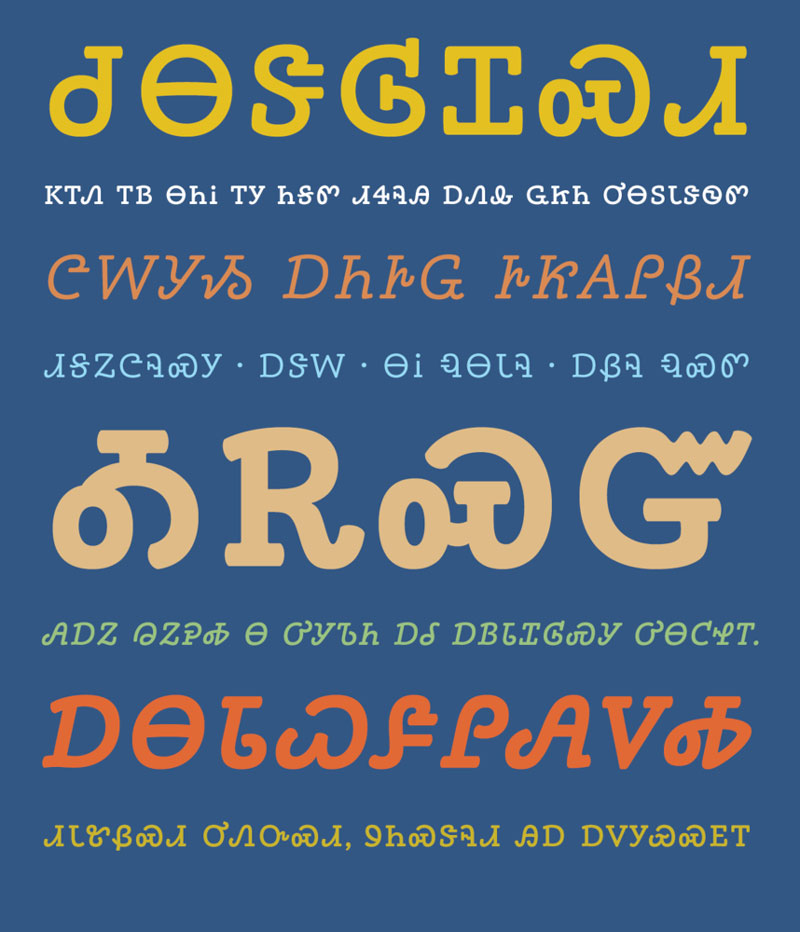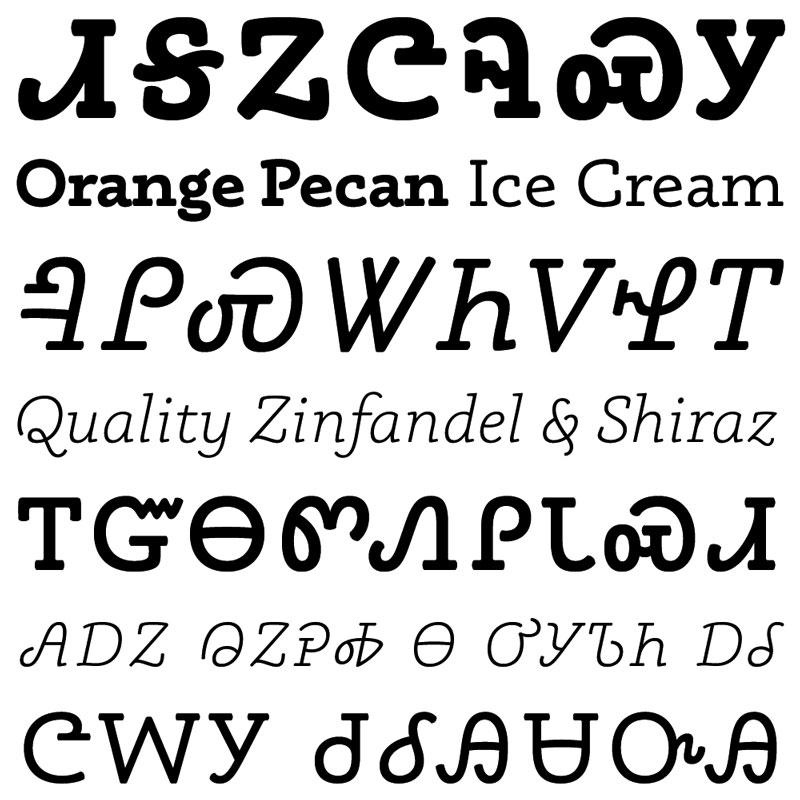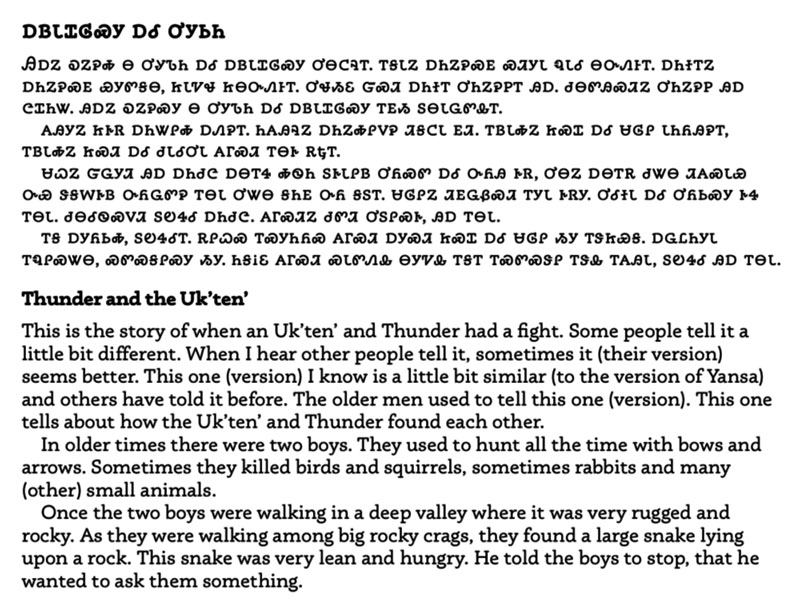
With only 10’000 people still speaking the Cherokee language, it is becoming urgent for them to save one of the few remains of what was once a great nation. There are no magic methods to save a language, but a graphic designer, Mark Jamra, is bringing his own contribution to the table: a modern Cherokee typeface.
This font, name Phoreus Cherokee, gives a new life to the language by fixing the words on paper and making it more official. It’s not the first Cherokee typeface, but it’s now the most accurate one. Compared to the standard latin characters set, a Cherokee alphabet was hard to design. The Cherokee language is based on tunes, with each symbol corresponding to a syllable. That gives you a total of 86 glyphs and letters.
To build this typeface, the designer used historical documents. He also had a close collaboration with Roy Boney Jr, a Cherokee who is responsible for the language program of the Cherokee Nation. The typeface is available for download in digital formats, and hopefuly it will help preserve the heritage of this civilization.